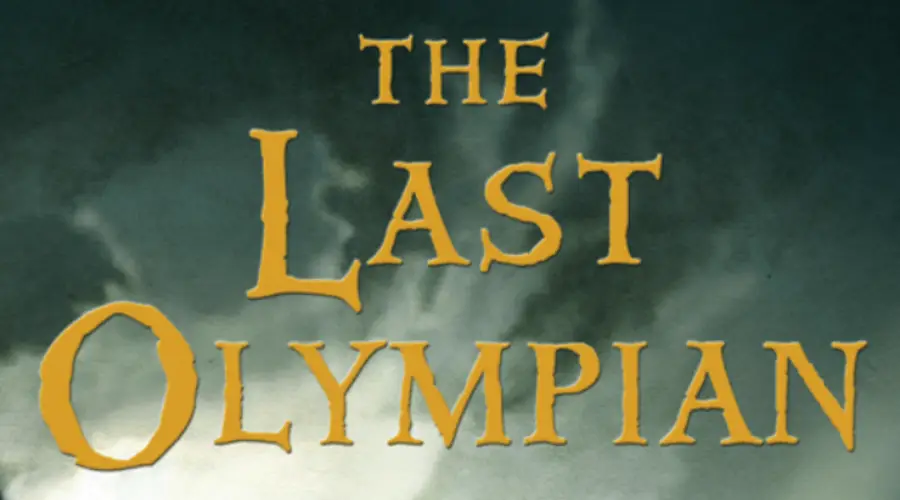
The Last Olympian Font is a decorative typeface used in the title of Rick Riordan’s book The Last Olympian, the fifth novel in the Percy Jackson and the Olympians series. This font, designed by David Nalle in 1993 and named Windlass, closely resembles the one used on the book cover.
Windlass by David Nalle This font is the primary match for The Last Olympian and is used in the logo.